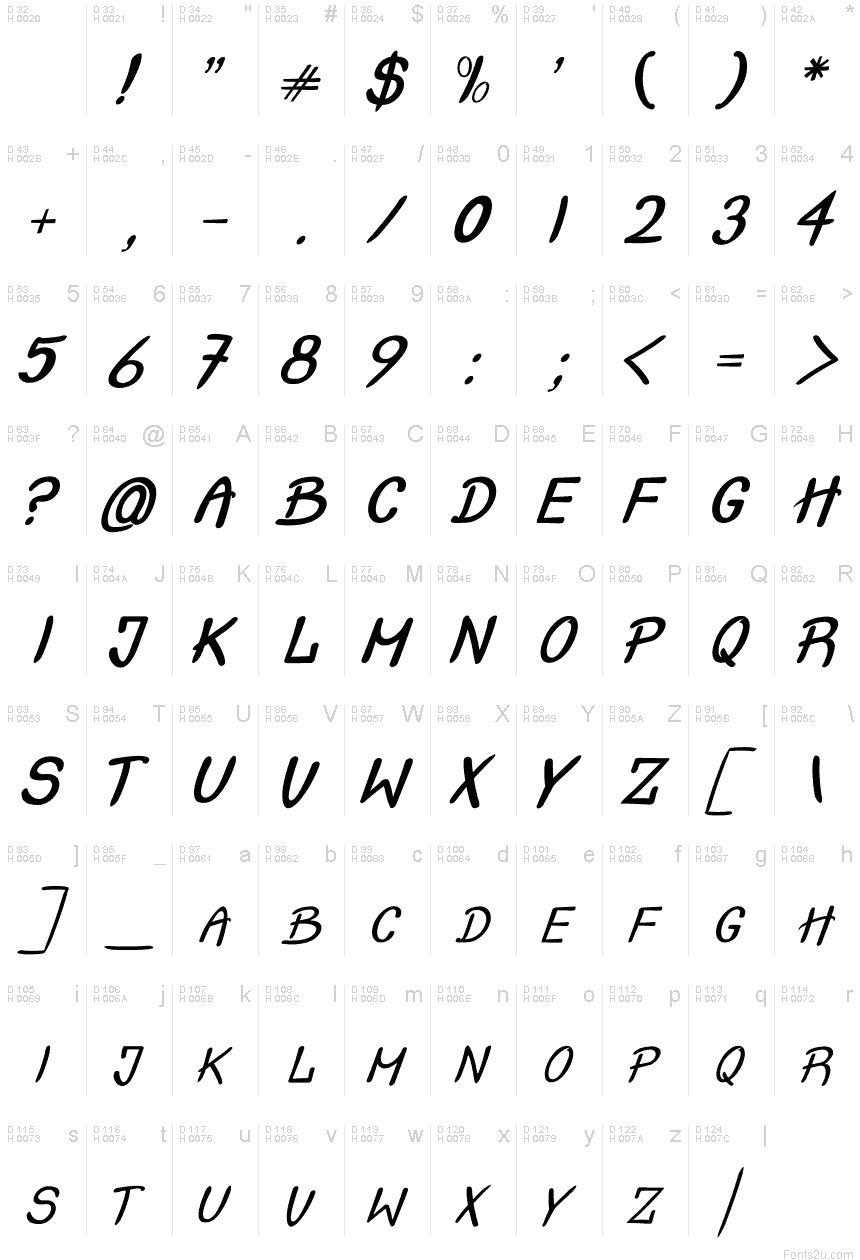
Crash Test Italic
Crash Test Italic font by Antrax is a free handwritten script typeface that looks like it’s been dashed across the page in one confident motion. The letters lean forward with a fast, brushy slant, giving headlines a sense of speed and spontaneity while staying clean enough to read at a glance. Rounded strokes and smooth curves keep it friendly rather than aggressive, so it feels more like a quick note from a friend than a harsh warning sign.
Using Crash Test Italic, you can inject motion and attitude into posters, band flyers, YouTube thumbnails, sports graphics, streetwear branding, and edgy social media visuals. This free font shines when you let it go big and bold, letting those sweeping diagonals do the talking. Pair it with a simple, neutral sans serif for body copy to keep the message clear while the Crash Test family handles all the visual drama.